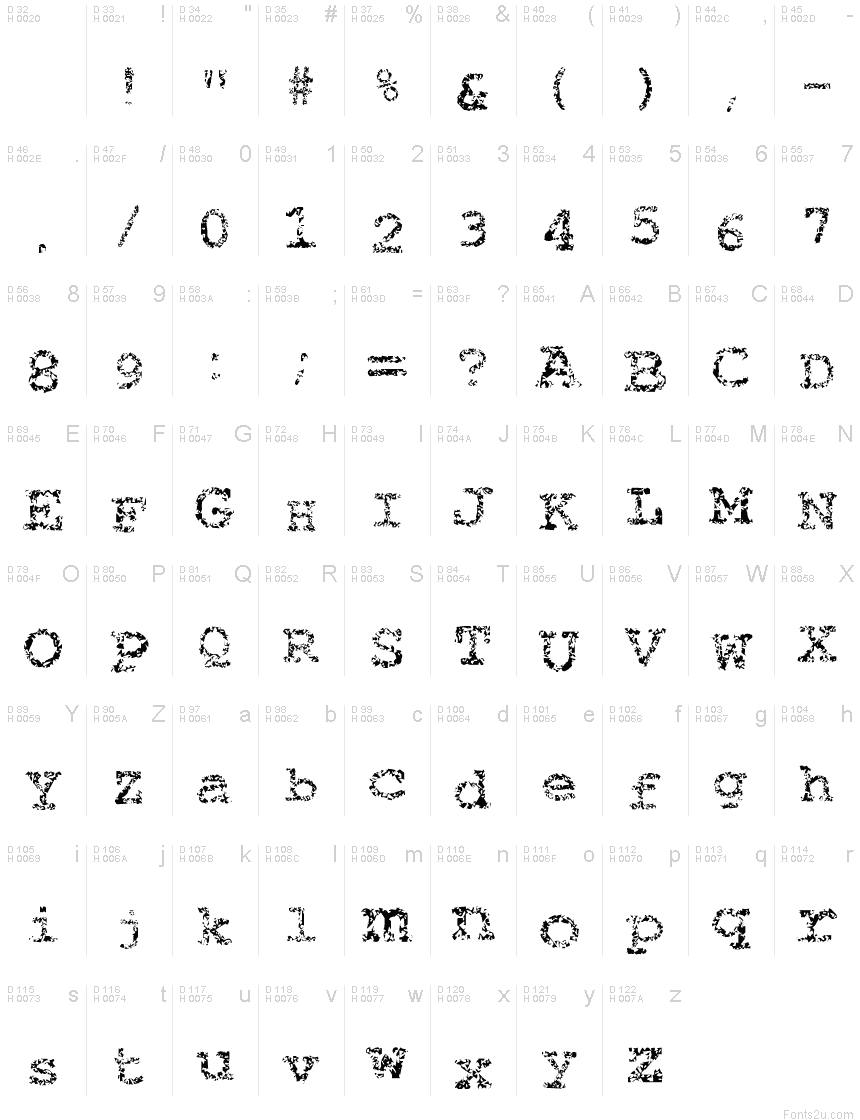
Typewriter from Hell, a free eroded display font by Jakob Fischer, turns the letters into torn, ink-blot shards with a frantic cut-paper silhouette. The overall feel is rough and unruly rather than mechanical, with chunky forms repeatedly broken into splinters that make the word look scraped, chewed, and thrown together in a hurry.
This free font fits posters, horror zines, album covers, game title cards, and event flyers where the lettering needs a damaged, feverish mood. It also works for short headlines and logo-style wordmarks, because the fractured edges do most of the talking even when the setting is brief.